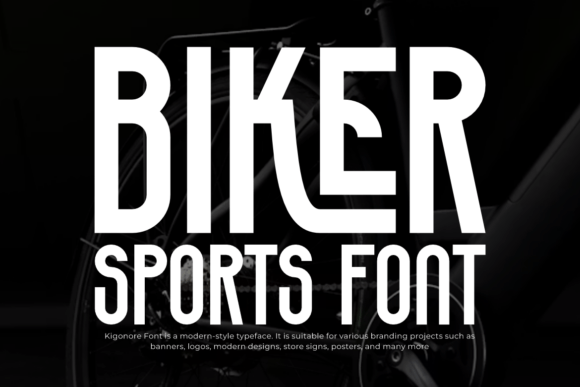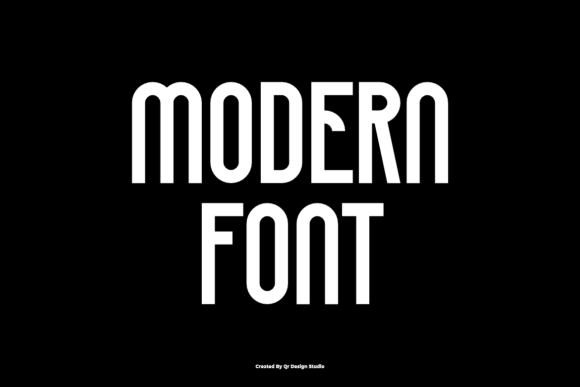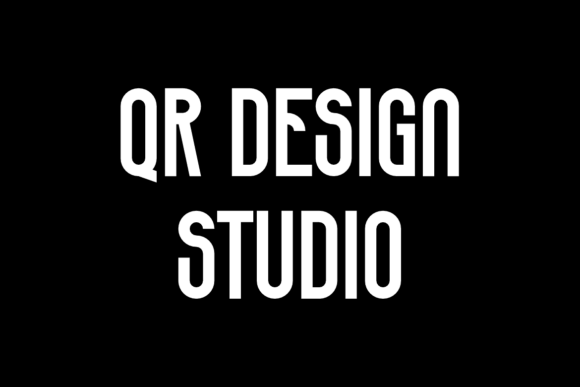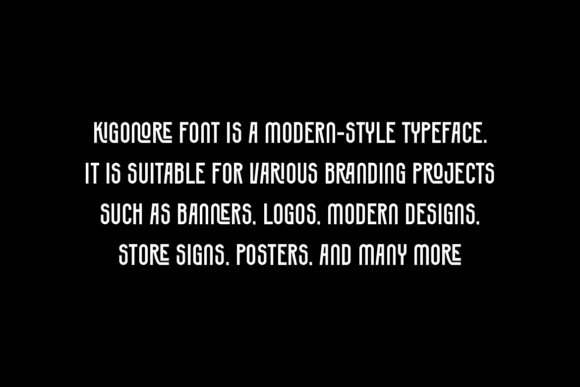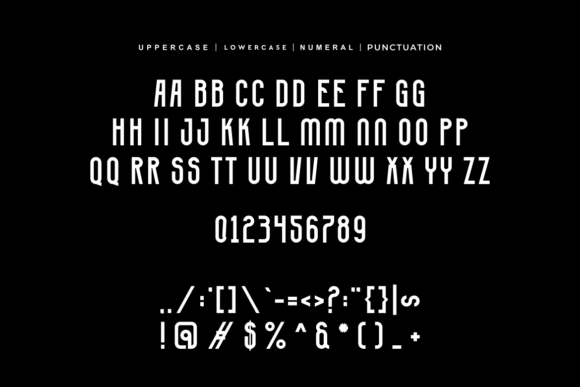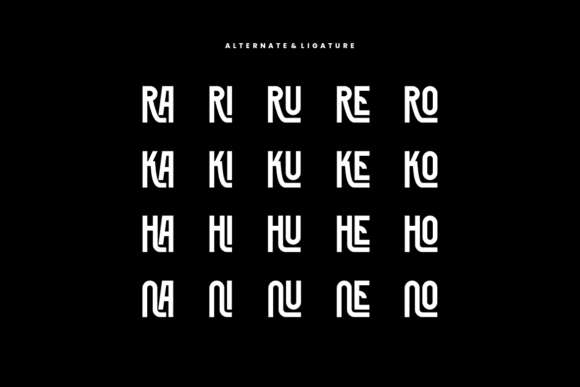
Introduction to Kigonore Font
Have you ever stared at a blank canvas, trying to bring your creative vision to life? The moment when all the dots connect, and your design resource finally takes shape, is one of the most exhilarating experiences for any designer. And what better way to elevate your creative project than with a font that embodies the essence of modernity and innovation?
Enter the Kigonore Font, a game-changing, highly stylized sans serif font that redefines the boundaries of design. With its dramatically tall, compressed letterforms and unique, curving ligatures, this font is the perfect match for high-impact branding, sports apparel logos, and technology company websites. Whether you’re working on a dramatic poster headline or a modern bio-link design, the Kigonore Font is sure to deliver maximum visual punch.
Key Features of Kigonore Font
- Designed to be highly legible, making it suitable for a wide range of applications, from print materials to digital displays.
- Unique, modern design aesthetic that can add a touch of sophistication to any creative project.
Honest Review: Kigonore Font
As a designer, I’m always on the lookout for high-quality design resources that can elevate my creative projects. The Kigonore Font is one such find that I’d like to share with you.
What works well about the Kigonore Font is its versatility and unique character set. It’s perfect for designers who want to add a touch of elegance and sophistication to their designs. The font is available for free download, which is a huge plus, especially for indie designers or those on a tight budget.
Here are some of the features that I appreciate about the Kigonore Font:
- High-quality design that’s perfect for both print and digital projects
- Only available in a few weights and styles, which may limit its use in certain projects
- May not be as customizable as some other fonts
- Not ideal for projects that require a bold, attention-grabbing font
Overall, I’d give the Kigonore Font 4 out of 5 stars. While it has some limitations, its unique character set and high-quality design make it a great addition to any designer’s toolkit. ✨
Tips for Getting the Most Out of Kigonore Font
Use Kigonore Font in conjunction with a transparent background to create a high-quality design resource. Experiment with different font sizes and styles to add depth and interest to your creative project. You can also use Kigonore Font in conjunction with other design elements, such as graphics and images, to create a unique and eye-catching design.
Kigonore Font is a versatile font that can be used in a variety of creative projects, including logos, business cards, and social media graphics. It is also a great choice for design resources, such as templates and design elements, that require a high-quality and professional font.